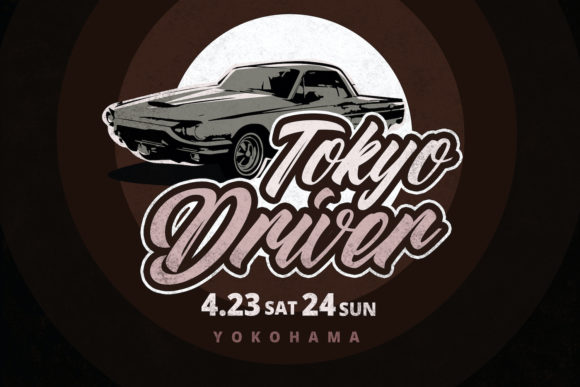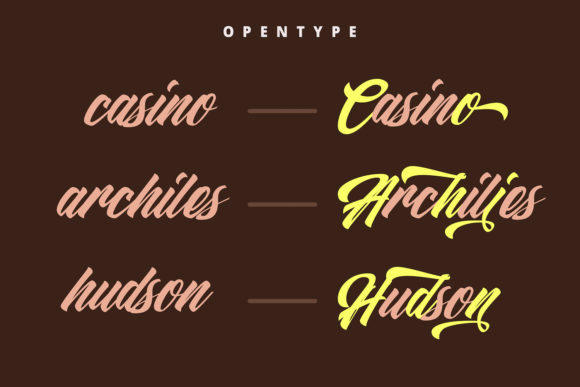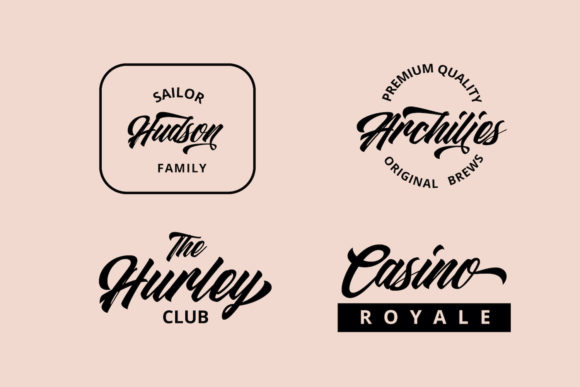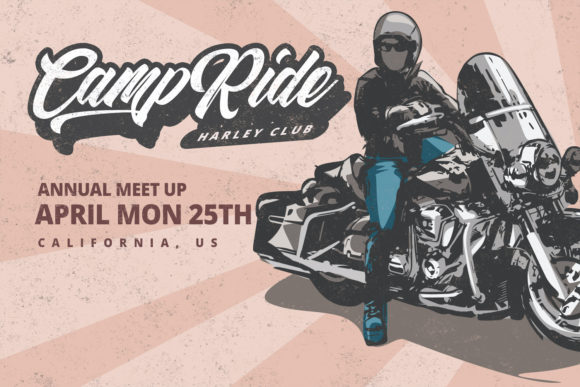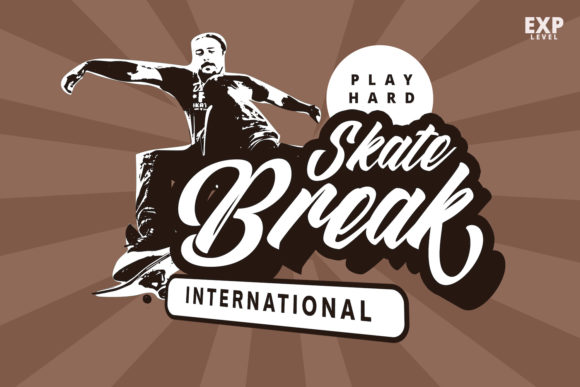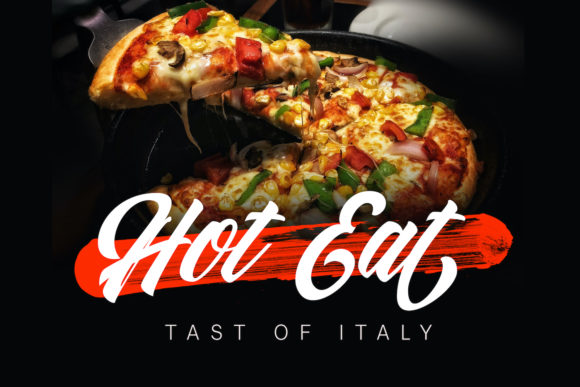
Introduction to Restu Bundah Font
Have you ever stumbled upon a vintage poster or a retro advertisement that instantly transports you back in time? The nostalgia and charm of those old-school designs are undeniable, and that’s exactly what the Restu Bundah Font is all about. This retro bold script is a design lover’s dream come true, perfect for anyone who wants to add a touch of vintage flair to their creative project.
With its groovy style and high-quality design, the Restu Bundah Font is a valuable resource for designers looking to elevate their work. Whether you’re creating a logo for a barbershop, a motorcycle club, or a coffee shop, this font is sure to bring a unique and eye-catching element to your design. And the best part? It’s available for free download, making it an accessible design resource for designers of all levels.
Key Features of Restu Bundah Font
- Unique, hand-drawn design with a transparent background for flexible placement
Honest Review: Restu Bundah Font
I recently came across the Restu Bundah Font and I must say it’s a great addition to any designer’s toolkit. As a design enthusiast, I appreciate high-quality fonts that can elevate a creative project to the next level.
The Restu Bundah Font is a free download, which is a major plus for designers on a budget. Its unique and elegant design makes it perfect for a wide range of applications, from corporate branding to editorial work.
- ✨ Unique and creative design that stands out from the crowd
- ✨ High-quality font that prints well and displays beautifully on screen
- ✨ Transparent background makes it easy to customize and layer with other design elements
- ⚠️ Limited character set, which may not be suitable for longer texts or extensive editing
Overall, I’m impressed with the Restu Bundah Font and I would definitely recommend it to designers looking for a unique and high-quality font for their creative project.
How to Use Restu Bundah Font
The Restu Bundah Font is a free, high-quality design resource perfect for any creative project. With its unique and elegant style, it’s ideal for use in various applications, including digital designs and print materials.
To get the most out of the Restu Bundah Font, try combining it with other design elements, such as graphics and colors, to create a unique and eye-catching design. Also, experiment with different font sizes and styles to add depth and visual interest to your design.
The Restu Bundah Font is perfect for use in a variety of projects, including business cards, brochures, and website headers. Its elegant and sophisticated style makes it ideal for use in creative and professional designs.
Alternatives to Restu Bundah Font
The Great Vibes Font is a high-quality, elegant script font that’s perfect for creative projects, wedding invitations, and other design resources. It’s free to download and offers a transparent background, making it ideal for use on various backgrounds. When to use: Wedding invitations, creative projects, and design resources that require elegance and sophistication. It compares to Restu Bundah Font by offering a similar elegant feel but with more refined and precise lines.
The Dancing Script Font is a playful, cursive script font that’s perfect for creative projects, such as social media graphics, advertisements, and design resources. It’s free to download and offers a transparent background, making it ideal for use on various backgrounds. When to use: Social media graphics, advertisements, and design resources that require a playful and creative touch. It compares to Restu Bundah Font by offering a more playful and whimsical feel, but with less sophistication.
Yes, the Restu Bundah Font is designed to be used on various backgrounds, including transparent ones. Its high-quality design ensures that it will look great even on a transparent background, making it a great choice for creative projects that require a clean and minimalist look.